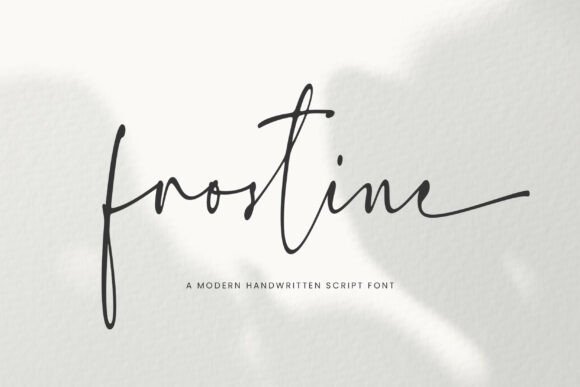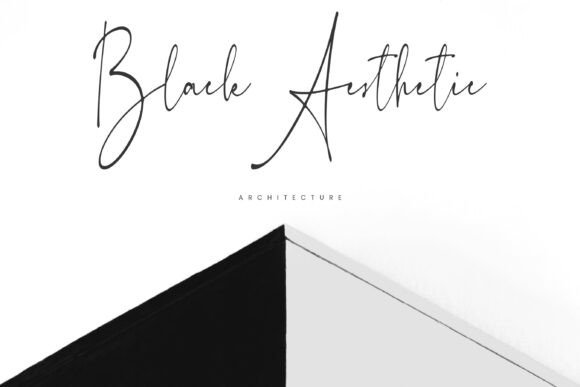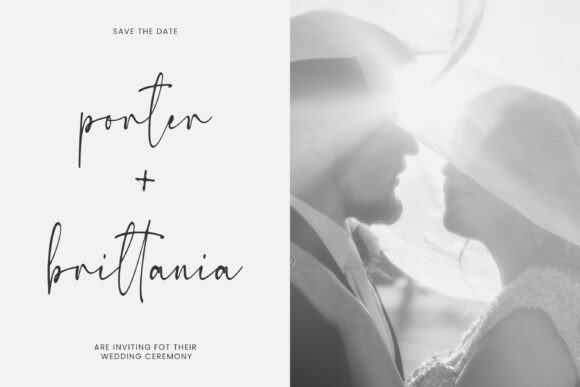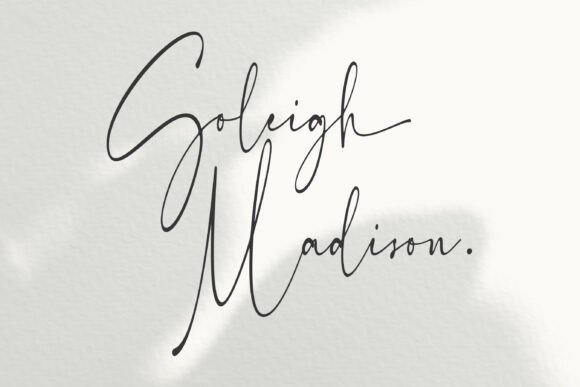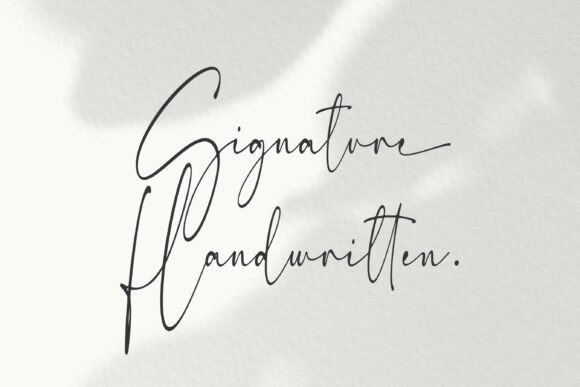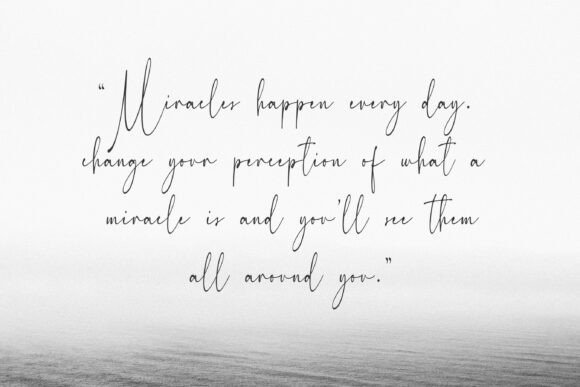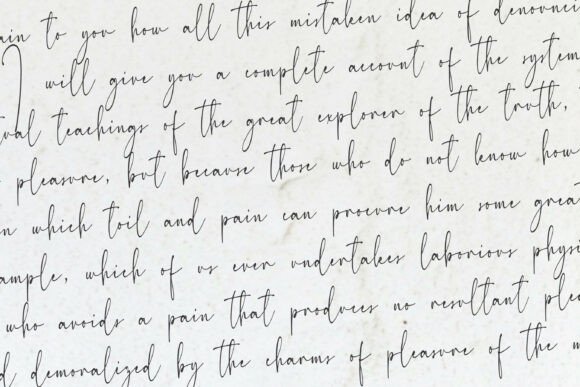
For those moments, there’s Frostine Font – a sleek and delicate handwritten script font designed with a modern sensibility. Its light strokes and effortless flow give it a refined, contemporary elegance that’s perfect for designers looking to add a touch of sophistication to their work.
Frostine Font is a valuable addition to any designer’s toolkit, offering a level of subtlety and refinement that’s hard to find in more bold or attention-grabbing fonts. Whether you’re working on a personal project or a high-profile campaign, Frostine Font is sure to deliver the results you’re looking for.
Frostine Font Key Features
- Font Family: Frostine
- Unique Characteristic: Frostine font features a unique blend of modern and vintage elements, making it perfect for creating a unique and eye-catching design
Frostine Font Review
Frostine Font is a modern, elegant script font that has caught my attention. Here’s what I think about it:
- Frostine Font has a beautiful, flowing design that is perfect for creative and artistic projects.
- The font is highly legible, even at smaller sizes, making it ideal for body text.
- The font family includes multiple weights, from light to bold, allowing for a lot of versatility in design.
- The font is highly customizable, making it easy to adjust to suit your design needs.
- Frostine Font may not be the best choice for formal or professional projects, as it has a more casual feel.
- The font may not be as readable at extremely small sizes, so be cautious when using it in titles or headings.
Overall, I’m impressed with Frostine Font. It’s a great choice for creative projects and can add a touch of elegance to your design. However, it may not be the best fit for every project, so be sure to consider your design needs carefully.
Getting the Most Out of Frostine Font
To get the most out of Frostine Font, try pairing it with bold or italic fonts for added emphasis.
Use Frostine Font for headings and titles to create a cohesive design.
Frostine Font is ideal for:
Designing winter-themed graphics and documents.
Creating invitations and event materials with a frosty or icy feel.
Adding a touch of elegance and sophistication to your designs.
Alternatives to Frostine Font
Pacifico is a beautiful, elegant script font perfect for creating a sense of sophistication and luxury. It is ideal for use in invitations, wedding designs, and other high-end projects. Compared to Frostine Font, Pacifico has a more refined and classic look, making it suitable for formal events and professional branding.
Great Vibes is a modern, handwritten font that conveys a sense of creativity and playfulness. It is ideal for use in casual designs, such as social media graphics, blog posts, and advertising materials. Compared to Frostine Font, Great Vibes has a more relaxed and casual tone, making it suitable for informal projects and social media campaigns.
Carolyna Pro is a beautiful, elegant script font with a touch of sophistication and luxury. It is ideal for use in high-end designs, such as branding, packaging, and advertising materials. Compared to Frostine Font, Carolyna Pro has a more refined and classic look, making it suitable for formal events and professional branding.
Alex Brush is a beautiful, handwritten font with a touch of elegance and sophistication. It is ideal for use in designs that require a sense of creativity and playfulness, such as social media graphics, blog posts, and advertising materials. Compared to Frostine Font, Alex Brush has a more refined and classic look, making it suitable for formal events and professional branding.